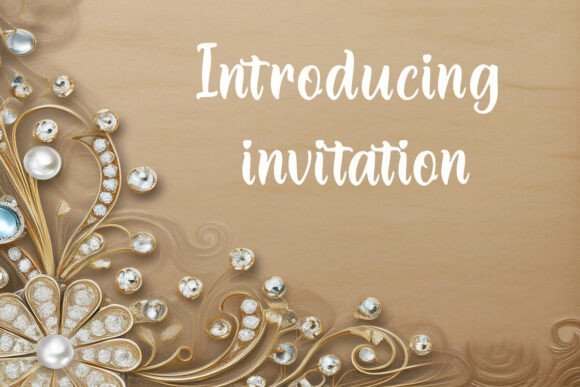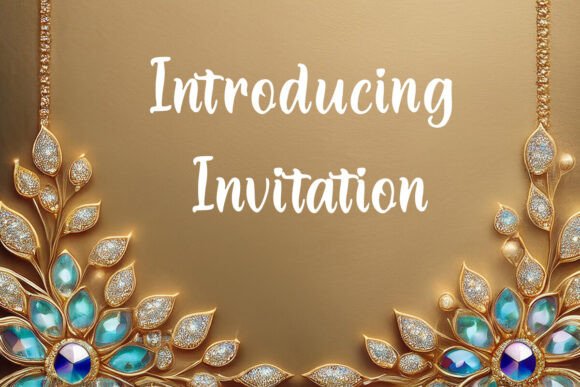
Unleash the Charm of Invitation Font
Remember that moment when a spark of creativity hits you, and you know exactly what you want to create? For designers, it’s the thrill of the chase – to find the perfect font that brings their vision to life. And that’s exactly where Invitation Font comes in – a versatile and dynamic font that’s perfect for a wide range of creative projects.
With Invitation Font, you can elevate your designs from ordinary to extraordinary. Whether you’re creating a bold t-shirt design, a crisp sticker, or a visually stunning magazine layout, this font has got you covered. Its unique character and style make it an invaluable tool for designers looking to add a touch of personality to their work.
So, what makes Invitation Font so valuable for designers? Its adaptability and charm make it a go-to choice for any project that requires a little extra flair. And with its wide range of applications, you’ll be sure to find a use for it in your next creative project.
Invitation Font Key Features
- Size: The font family includes multiple weights, ranging from Thin to ExtraBold, allowing for a wide range of design applications.
- Unique Characteristics: Invitation Font features elegant, cursive script and serif elements, making it suitable for formal and luxurious invitations, wedding stationery, and high-end branding.
- Language Support: The font supports a wide range of languages, including Latin, Cyrillic, and Greek, making it a versatile choice for international designs.
- Font Size: The font is designed to be legible at font sizes ranging from 8 to 24 points, making it suitable for various design applications, from small text to large headings.
Designer Review: Invitation Font
Overall, I’m impressed with Invitation Font’s elegant and sophisticated aesthetic. ✨ The font’s flowing curves and subtle flourishes evoke a sense of luxury and refinement, making it perfect for high-end invitations, weddings, and special events.
- Elegant and sophisticated aesthetic
- Flourishing curves and subtle details
- Perfect for high-end invitations and special events
- Works beautifully in both digital and print applications
- May not be suitable for bold or playful designs
- Some characters may not render correctly in certain fonts
- Lack of ligatures can make text appear a bit disjointed
Overall, I’m a big fan of Invitation Font. While it may have some limitations, its beauty and versatility make it a great addition to any designer’s toolkit. With a little creativity and experimentation, you can create stunning designs that are sure to impress.
For a more elegant look, pair the Invitation Font with a subtle background image or texture.
For a more professional look, use the Invitation Font in combination with other design elements, such as graphics and textures.
For a more polished look, use the Invitation Font consistently throughout your presentation or document.
The Invitation Font is ideal for:
Wedding invitations, birthday party invitations, and other special occasion invitations.
Event promotions, such as concert or festival invitations.
Branding and marketing materials, such as business cards and brochures.